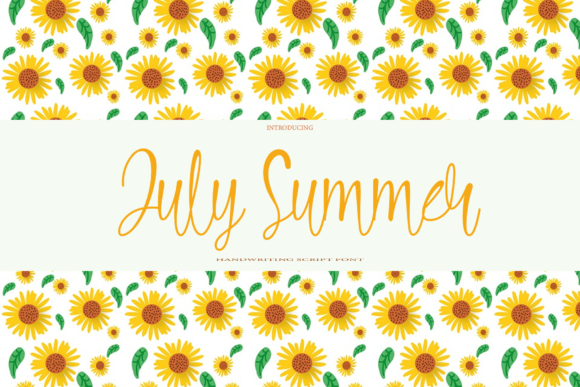
About July Summer Font
July Summer is a smooth and beautiful handwritten font. This font is suitable for writing letters, signatures, and various other types of products.